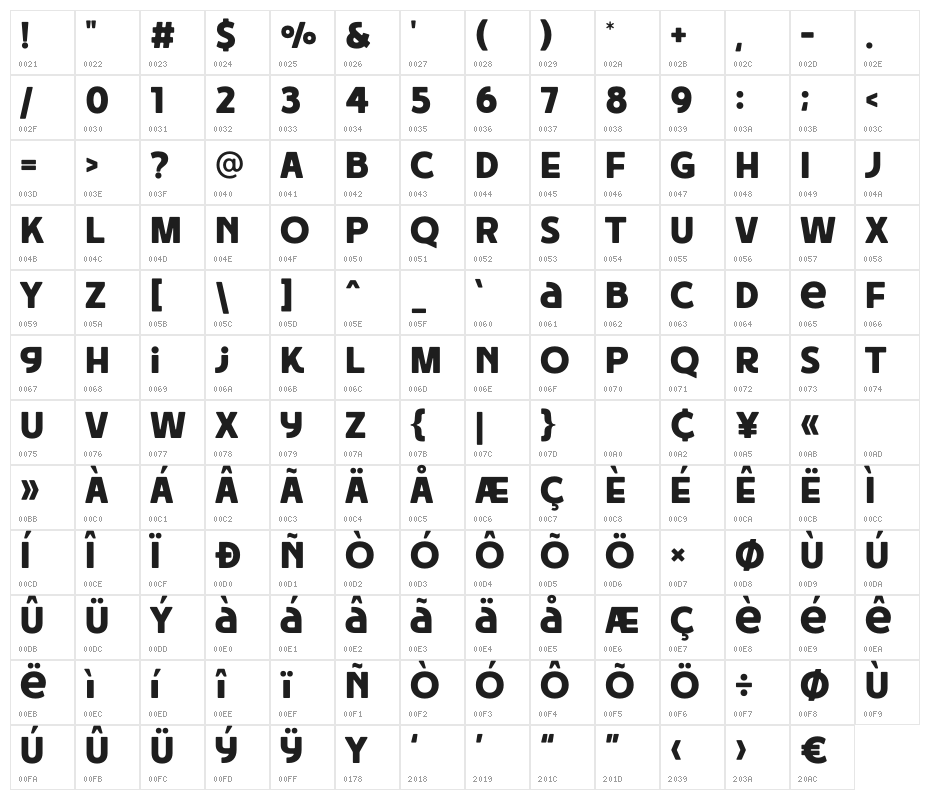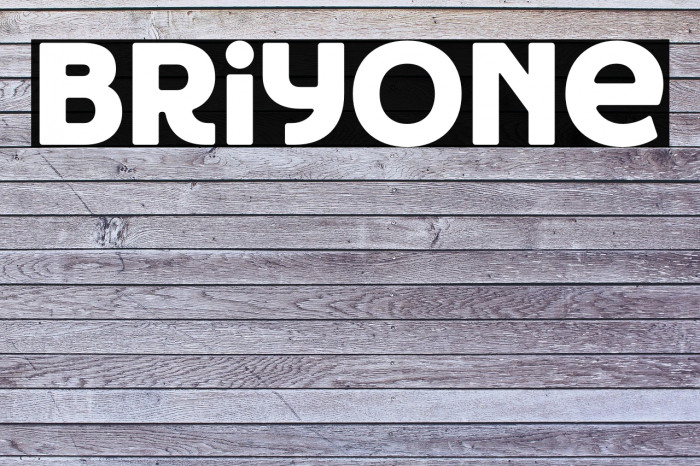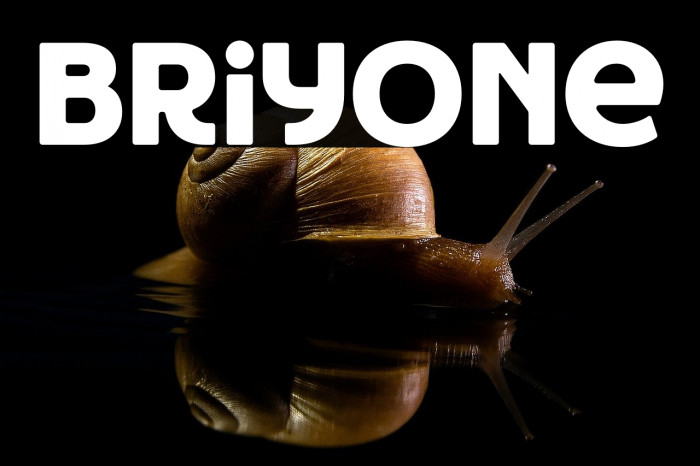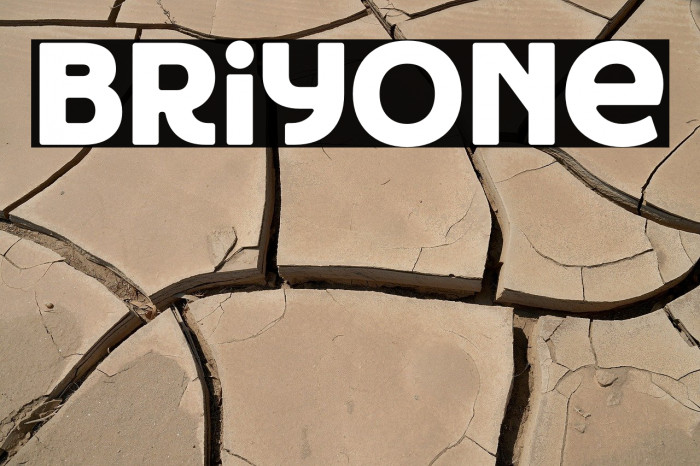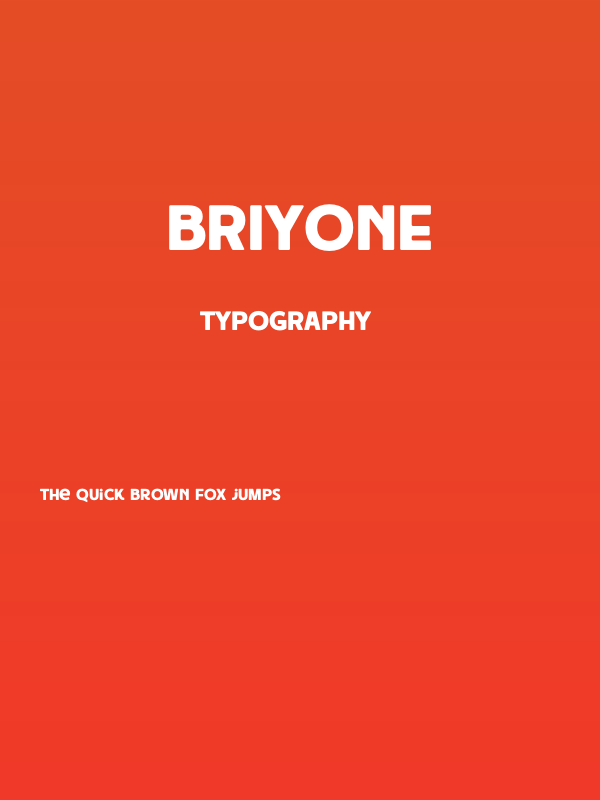
Briyone Font
Briyone Description
This font features bold, rounded characters with a strong presence, making it ideal for attention-grabbing designs. The uppercase and lowercase letters maintain a consistent weight, providing a harmonious look. The numerals and special characters are designed with the same boldness, ensuring uniformity across all text elements. Its rounded edges give it a friendly and approachable feel, while the boldness adds a modern touch. The font is versatile, suitable for various applications where a strong visual impact is desired.
| Proposed Projects | Ideal for branding, headlines, posters, and advertising where a strong, friendly impact is needed. |